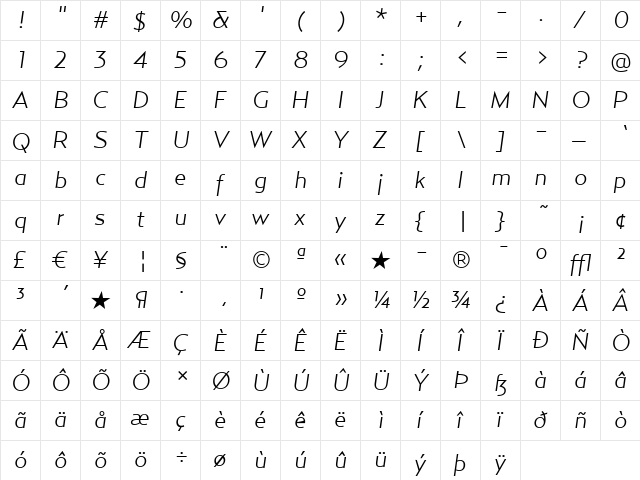
RelayWide-LightItalic Regular Font Preview
| Designer | Cyrus Highsmith |
Design Context for RelayWide-LightItalic Typeface
RelayWide-LightItalic offers clean, dependable letterforms without strong stylistic allegiance, making it a practical choice for designers who need flexibility. Its italic angle brings a sense of urgency and motion to the letterforms. Its slender proportions lend an understated elegance to any composition.
Pro Tip: Use RelayWide-LightItalic for emphasis, pull quotes, and subheadings where its slanted energy can add rhythm to the layout.